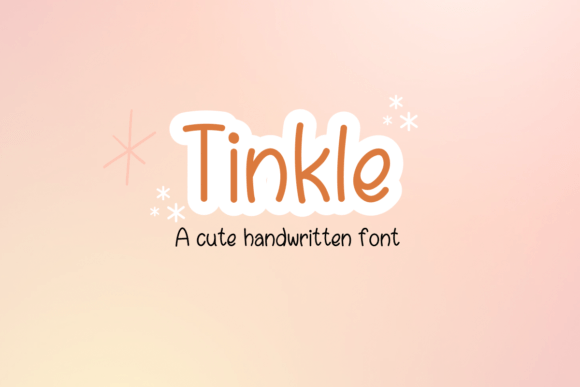
Prepare to be enchanted by Tinkle Font, a script typeface that embodies charm and playfulness. Its delightful handwritten characters bring a touch of whimsy to any creation, whether you're crafting invitations, greeting cards, or any project infused with sweetness and cheer. Its graceful curves and expressive strokes possess an undeniable allure, captivating the senses with their charm.
Tinkle Font is more than a mere font; it's an artistic expression that elevates the ordinary into the extraordinary. With its unique and captivating style, Tinkle Font transforms your designs into captivating works of art. Unleash your creativity and let Tinkle's enchanting characters dance across your digital canvas, leaving a trail of delight and wonder in their wake.
With Tinkle Font, your designs will radiate a warmth and playfulness that resonates with viewers, creating an emotional connection that transcends the boundaries of the digital realm. Prepare to be captivated by its irresistible charm as you witness your creations come alive with a vibrant, enchanting aura.
This font is not just a font; it's an invitation to let your imagination run wild, to embark on a creative journey where the possibilities are limitless. With Tinkle Font as your guide, you'll discover hidden realms of creativity, transforming the mundane into the magnificent.
So, embrace the magic of Tinkle Font, allow its whimsical characters to ignite your imagination, and embark on a creative adventure that will leave you spellbound. Let Tinkle's enchanting allure cast its spell on your designs, transforming them into captivating masterpieces that radiate joy and captivate hearts.